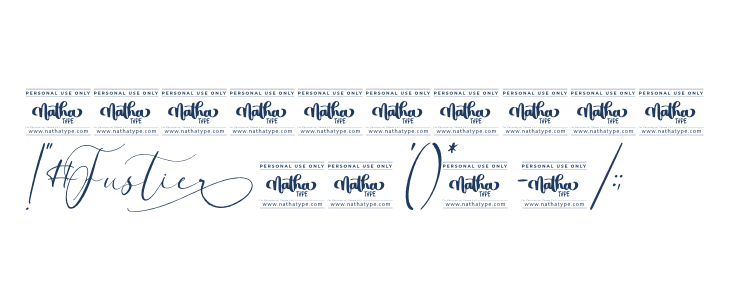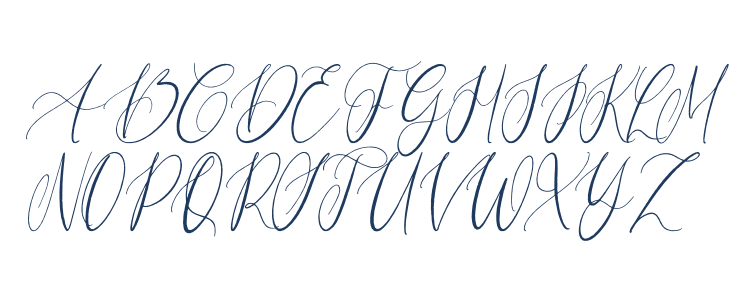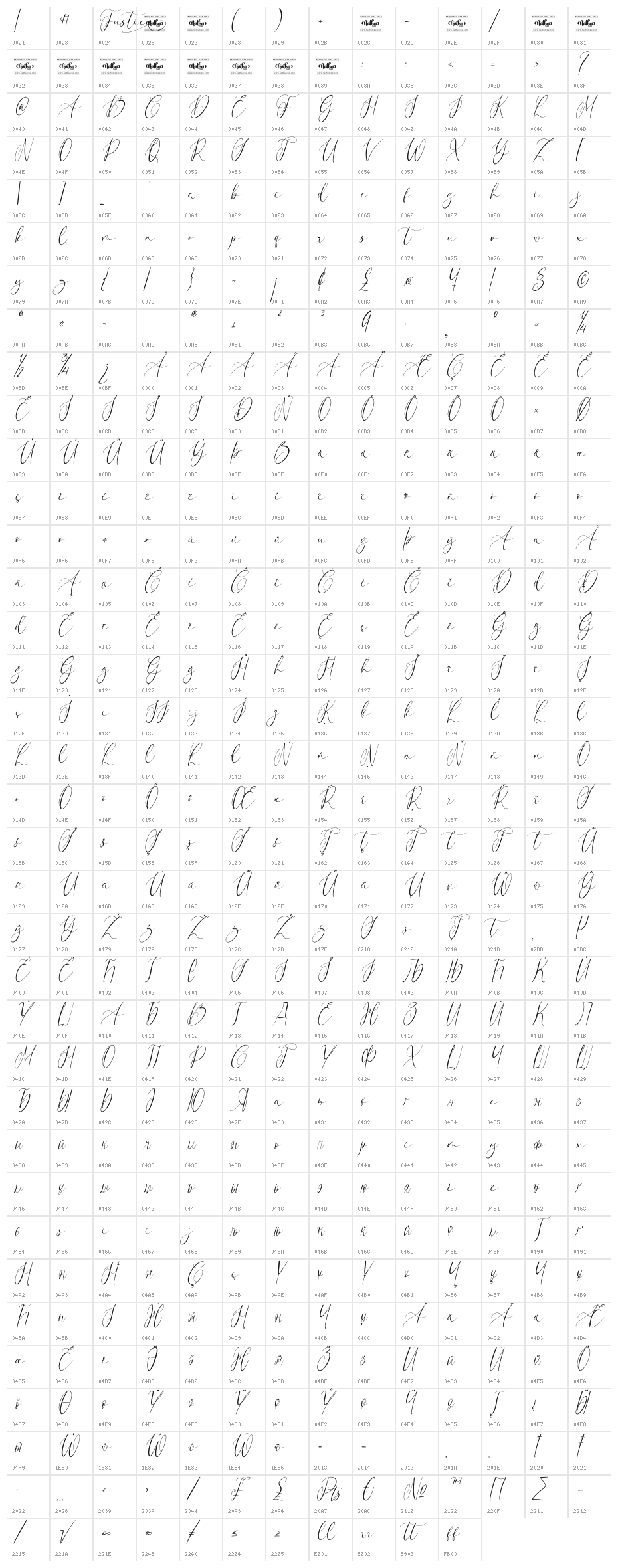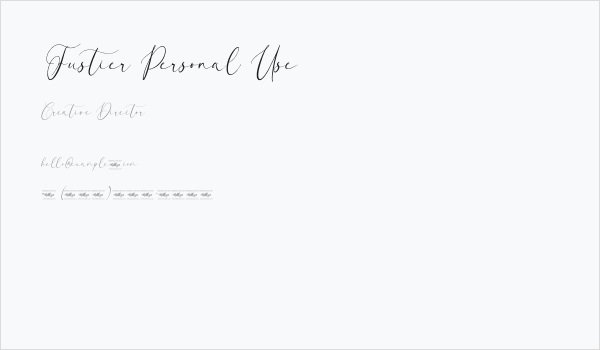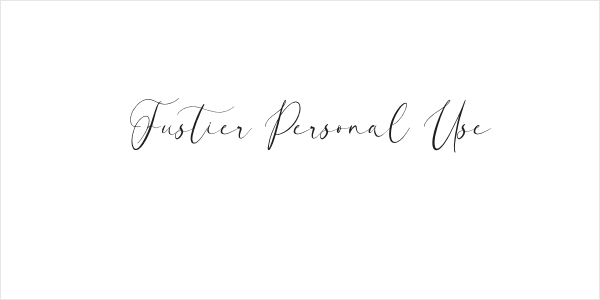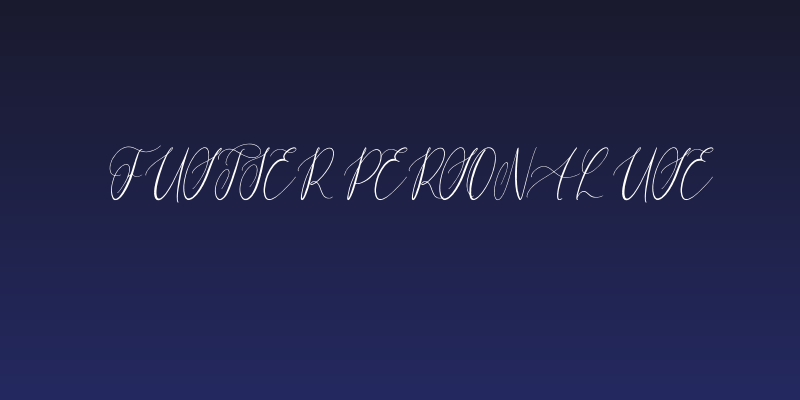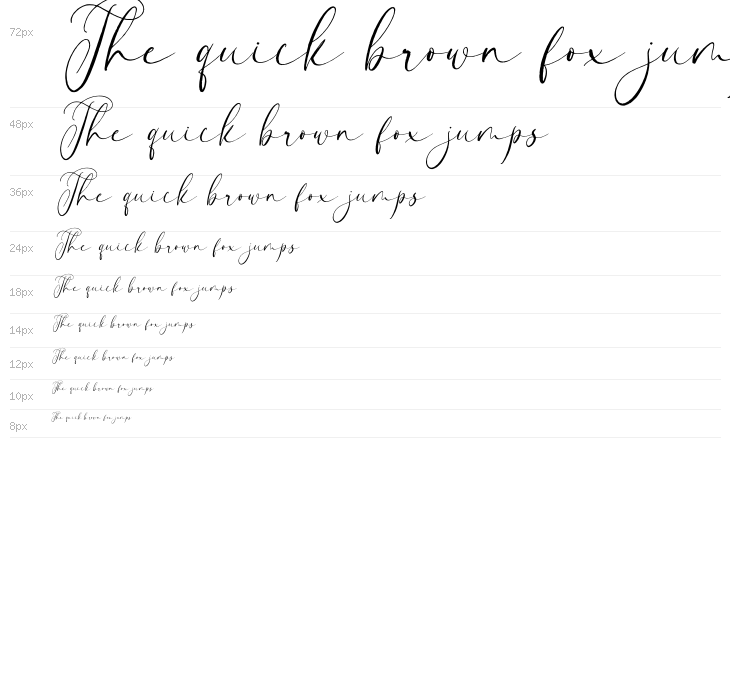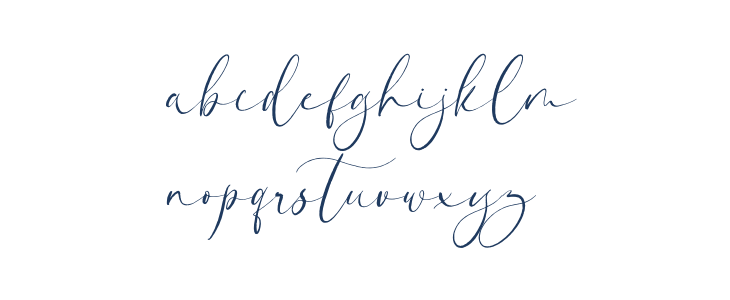
Fustier Personal Use Font
Fustier Personal Use Description
Elegant, flowing script font with high contrast between thick and thin strokes, featuring long, sweeping ascenders and descenders, and a handwritten, calligraphic style. The characters are connected and ornate, with a natural, organic rhythm.
| Overall Style | Decorative, Elegant, Handwritten |
| Use Case | Logos, Invitations, Decorative headings |
| Proposed Projects | Wedding invitations, branding, greeting cards, social media graphics, personal signatures. |